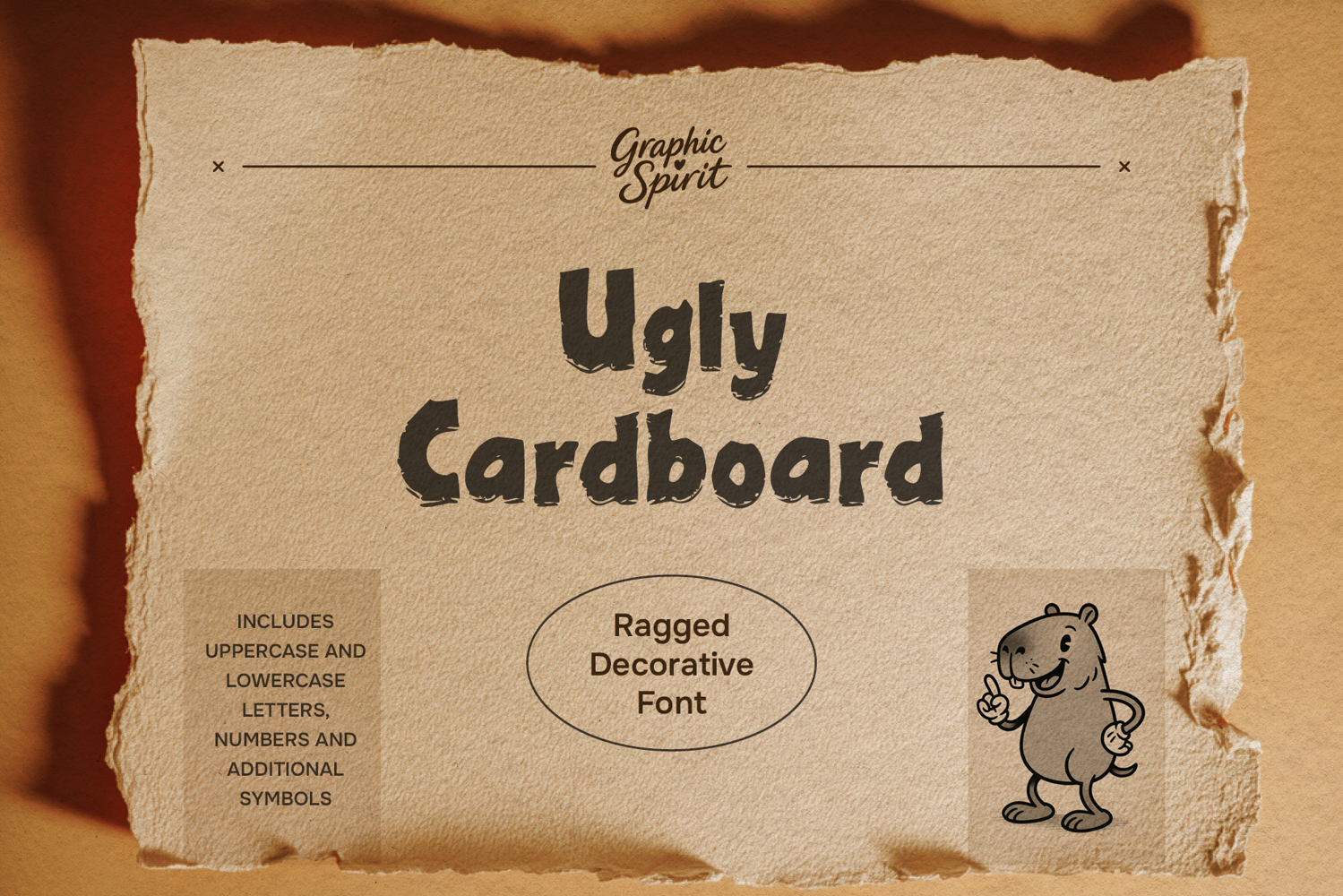
Ugly Cardboard Ragged Decorative Font
🖌️ Instantly elevate your creative projects with our Ugly Cardboard Ragged Decorative Font! This uniquely distressed typeface perfectly captures a raw, hand-crafted aesthetic with its rough edges, uneven textures, and gritty, urban charm. Ideal for adding a touch of authentic, edgy character to your designs, it’s a must-have for makers seeking to stand out.